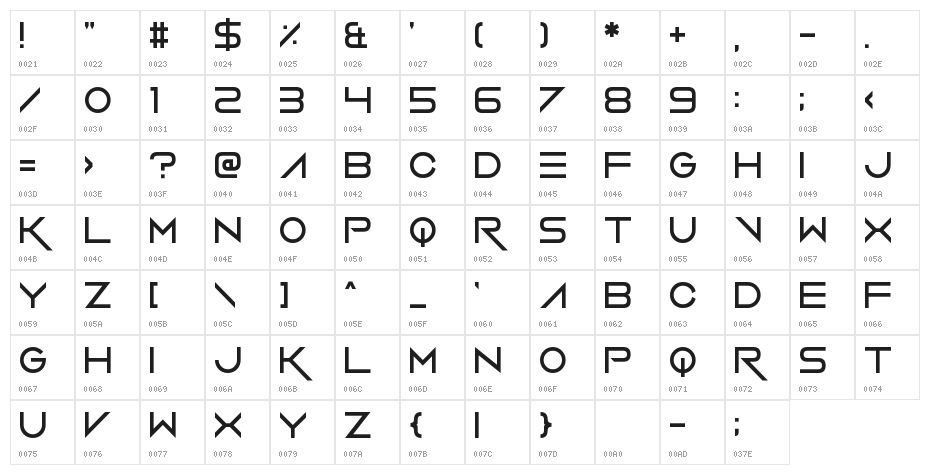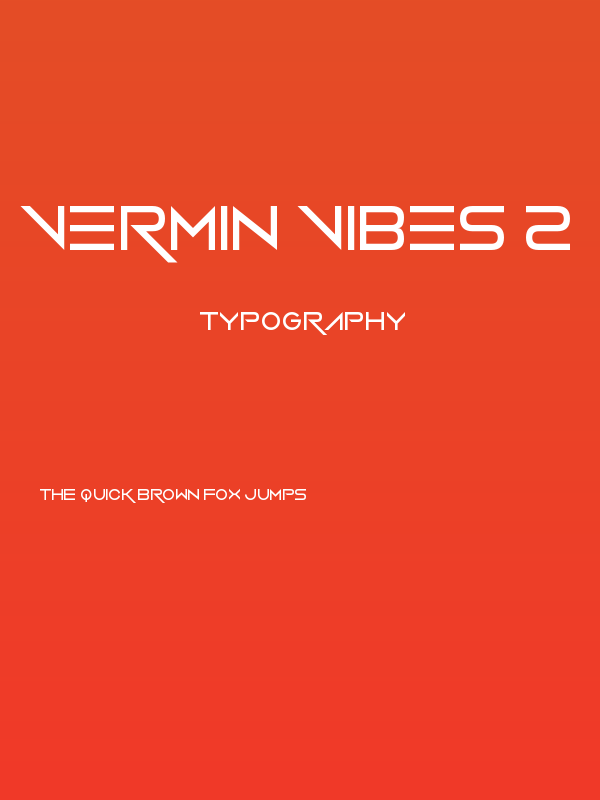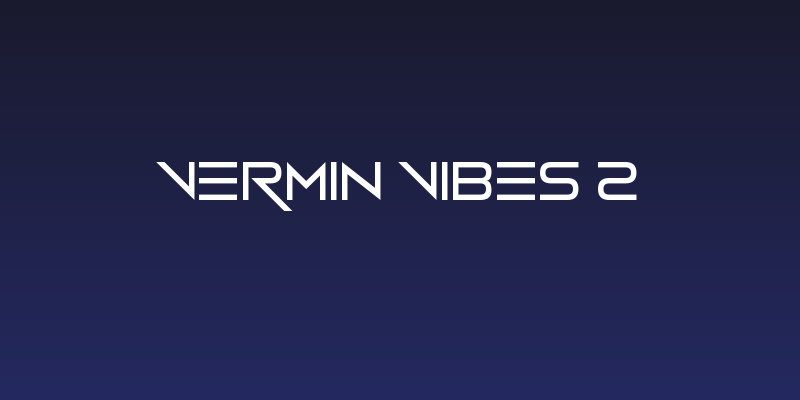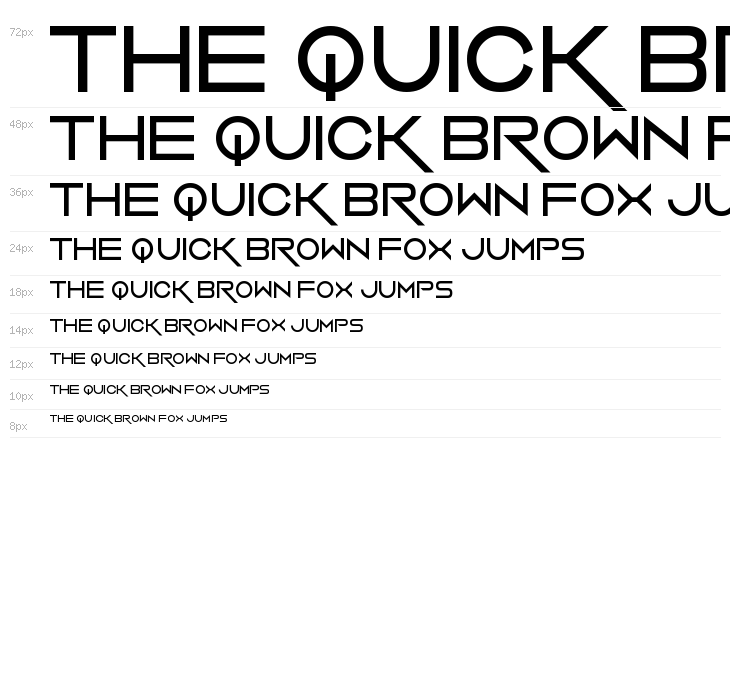
Vermin Vibes 2 Font
Vermin Vibes 2 Description
This font features a futuristic and geometric design, characterized by sharp angles and clean lines. The uppercase letters exhibit a unique blend of straight edges and subtle curves, creating a modern and edgy appearance. The numerals and special characters maintain this aesthetic, offering a cohesive look across all glyphs. The font's distinct style is further emphasized by its uniform stroke width, which contributes to a sleek and streamlined appearance. Overall, this font exudes a sense of modernity and innovation, making it suitable for projects that require a contemporary and cutting-edge look.